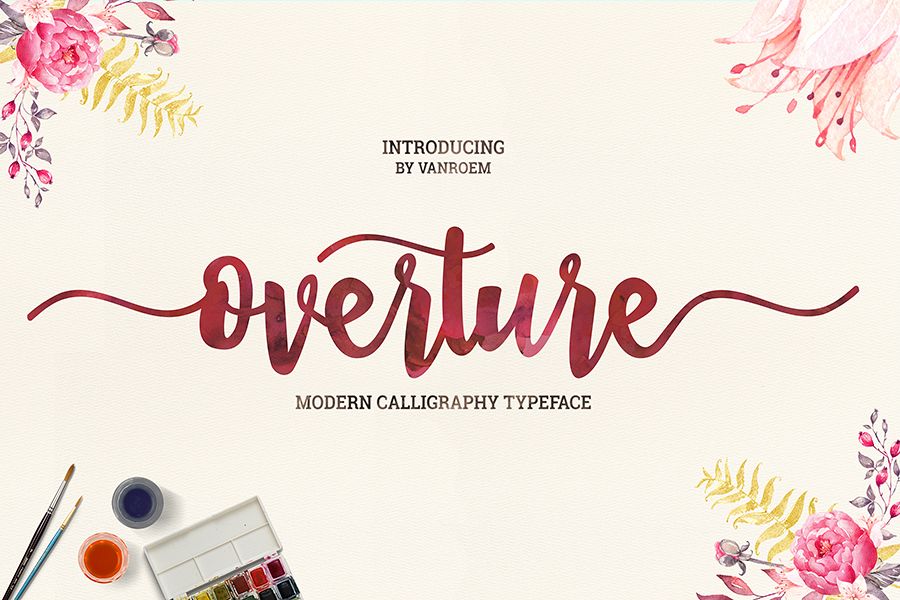
Overture
overture script.
Overture is a script font that combined brush lettering with traditional hand writing. It is multipurpose and flexible, make it easy to match with another typefaces to create some beautiful project such as wedding invitation, vintage design, greeting card, poster, book cover, illustration, etc.
Overture script comes with 420 glyphs in total. Which you can mix and match to fit your design. It was divided into a several OpenType feature such as Ligature, Contextual Alternates, Stylistic Alternates, and Stylistic Sets.